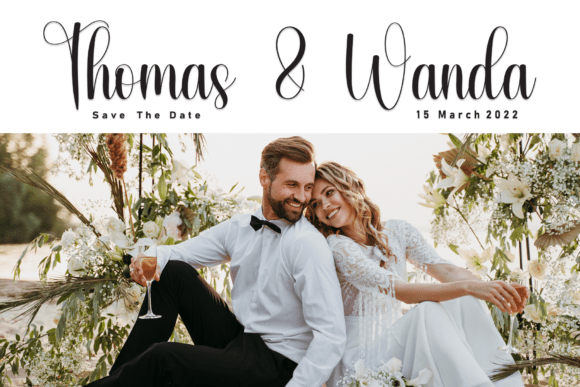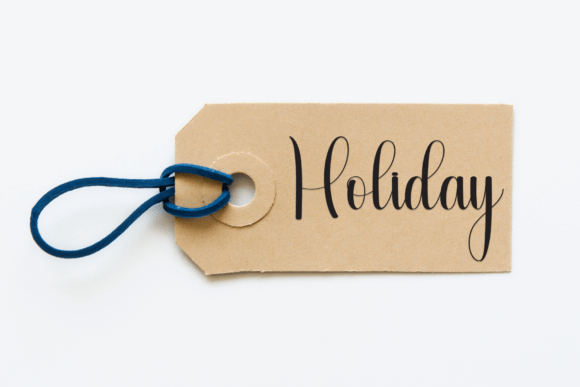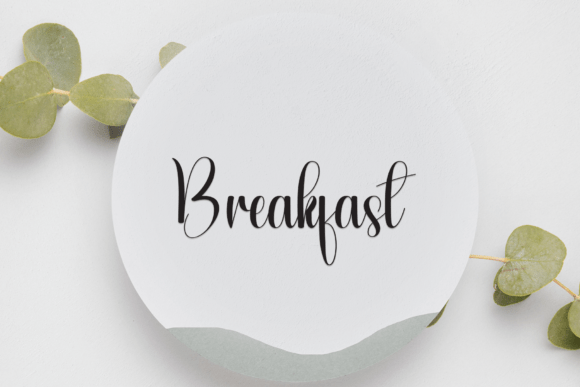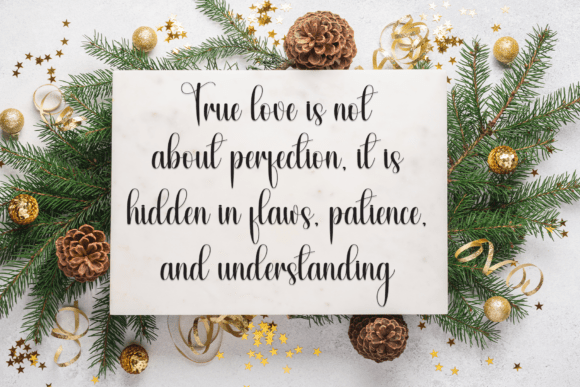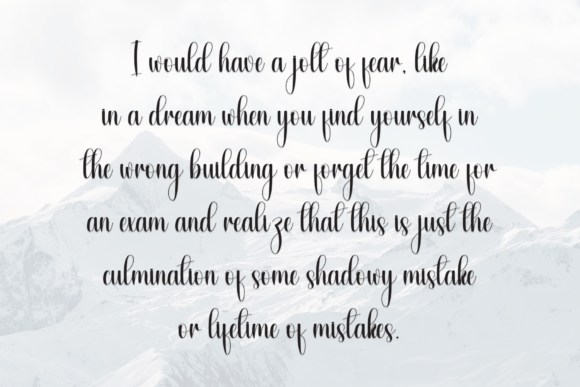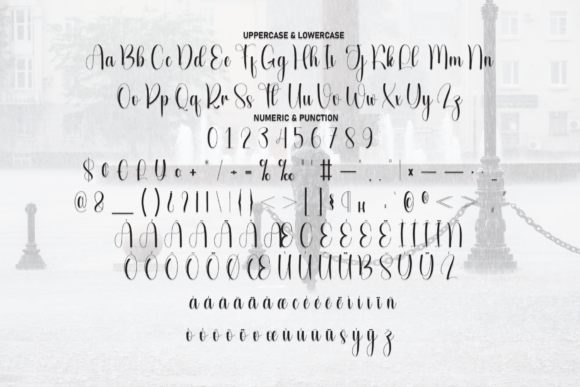
Introduction to Justice Rainsnow Font
Introducing a charming and delightful handwritten display font that instantly captivates with its innocent charm.
Its lighthearted personality makes it a perfect match for crafting wedding invitations, cards, or any creative design craving a fun and unique touch Experience the sweet appeal and friendly allure thatโs beautifully infused into every stroke of this adorable typeface.
Key Features of Justice Rainsnow Font
Why Choose Justice Rainsnow Font?
Justice Rainsnow Font offers exceptional quality and versatility, making it a valuable addition to your design toolkit. Whether you’re creating for personal projects or commercial use, Justice Rainsnow Font delivers professional results.